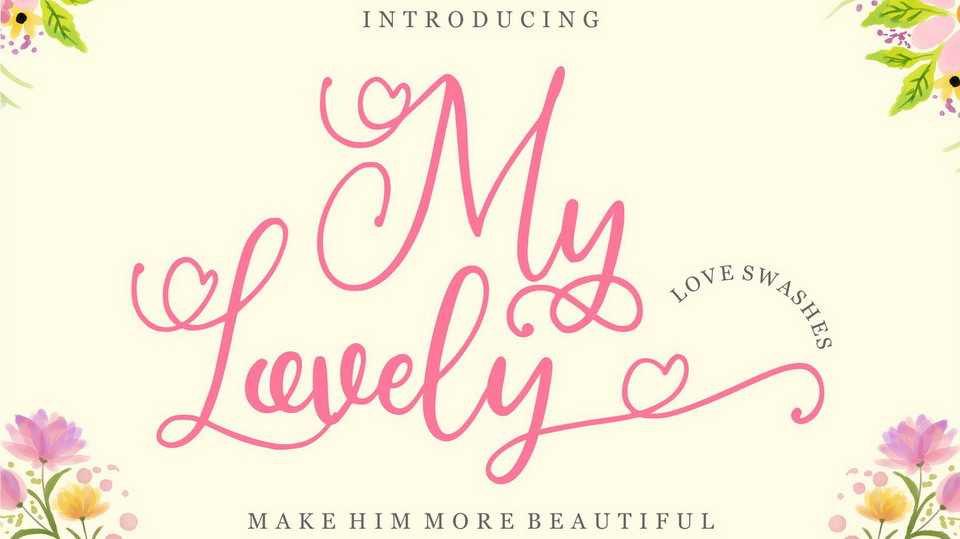
Download My Lovely font, a beautiful script with a romantic swashes in the begining and ending characters. Perfect for invitations, monograms, wedding, fashion, branding, label or logotype.
Designer: Good Java Studio